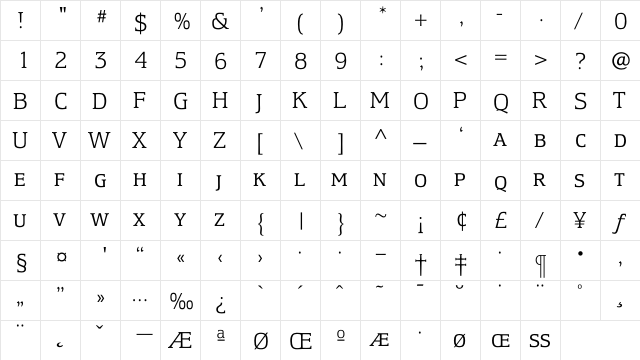
EquestrienneLightExpert Regular Font Preview
EquestrienneLightExpert Regular
EquestrienneLightExpert Regular Font Details
Design Context for EquestrienneLightExpert Typeface
EquestrienneLightExpert takes a measured approach to typography — its balanced proportions and neutral character make it a reliable workhorse for both digital and print work. The delicate stroke weight brings airiness and refinement to layouts.